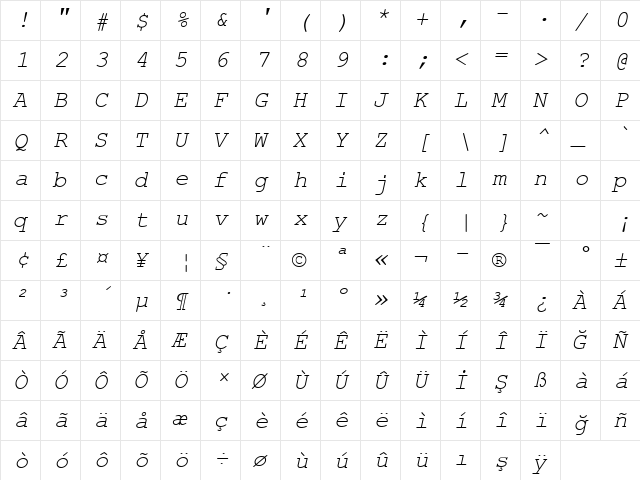
Courier New Digiscream Italic
Design Context for Courier New Digiscream Typeface
Courier New Digiscream uses fixed-width spacing throughout, giving it the structured, systematic character associated with coding environments and technical documentation. Its italic angle brings a sense of urgency and motion to the letterforms.